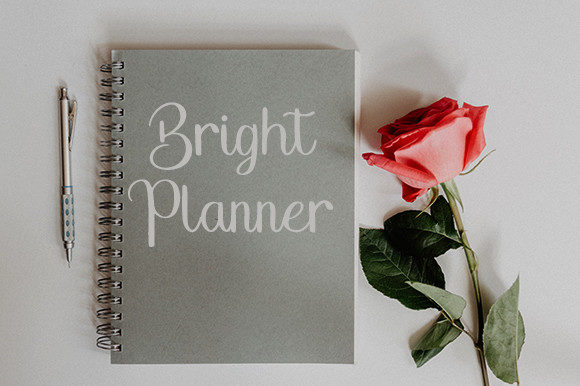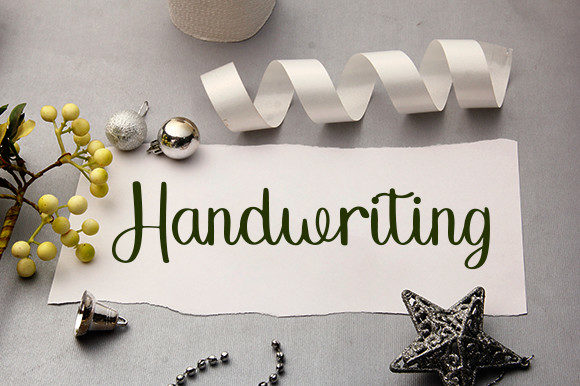
Daily Journal Font
db-ku.com - Script & Handwritten -- Daily Journal font is a script type font that was created by paying careful attention to every curve and distance between letters so as to produce a quality result. It is perfect for various projects such as wedding invitations, t-shirt printing, brands and much more.